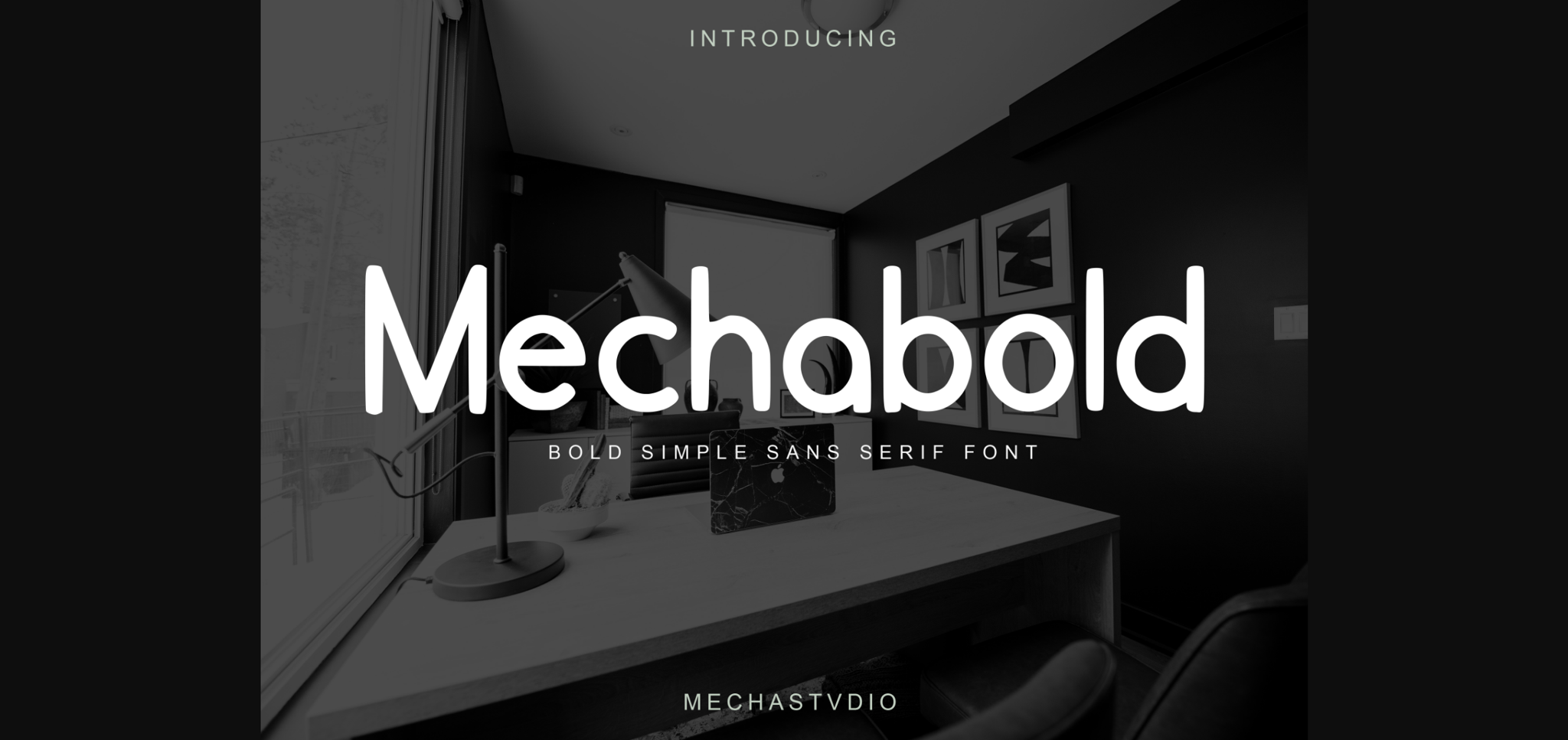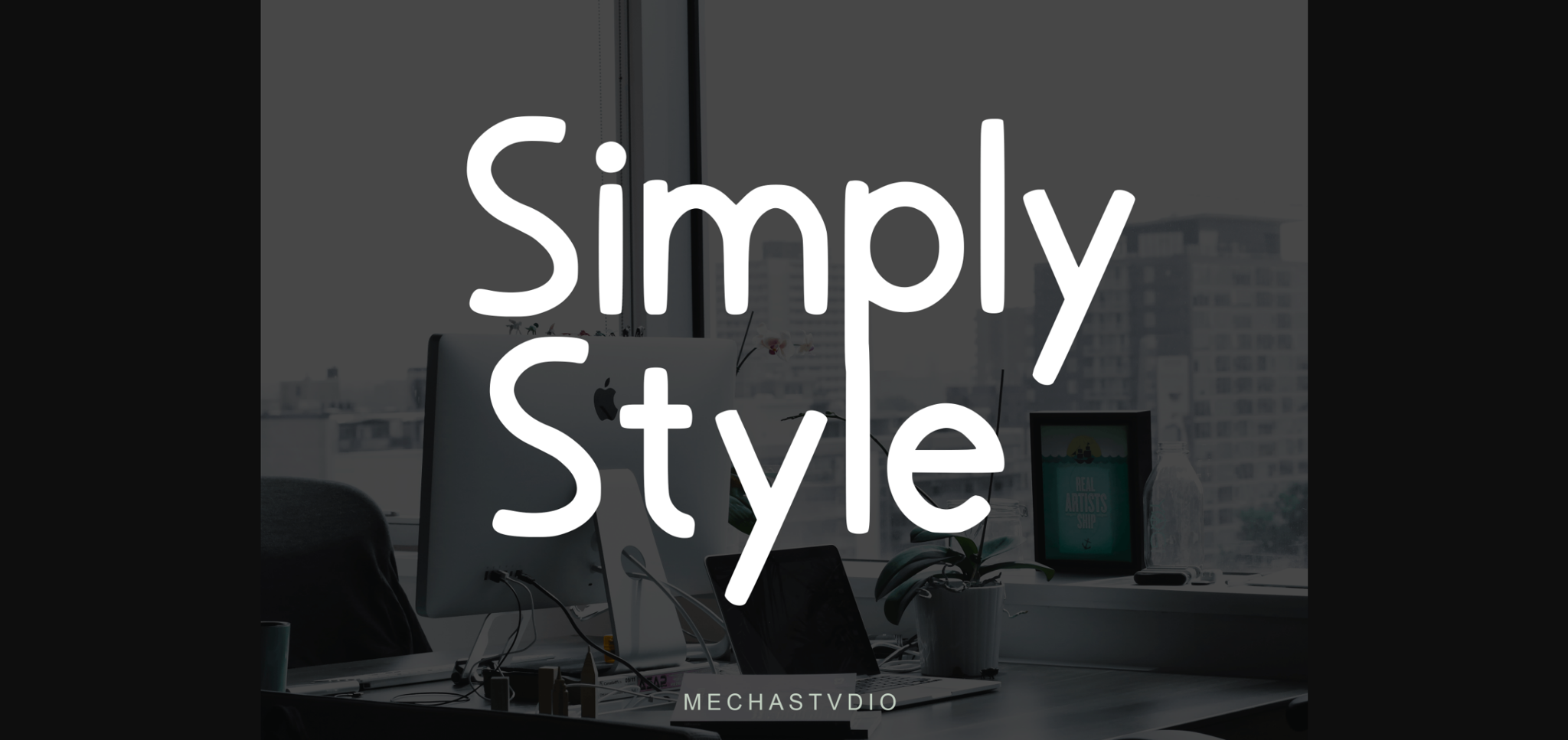
Mechabold Font
About Mechabold Font
Mechabold is a modern, simple, and unique sans-serif font. Its unique style is perfect for all your projects as it has the potential to transform them into true standouts.